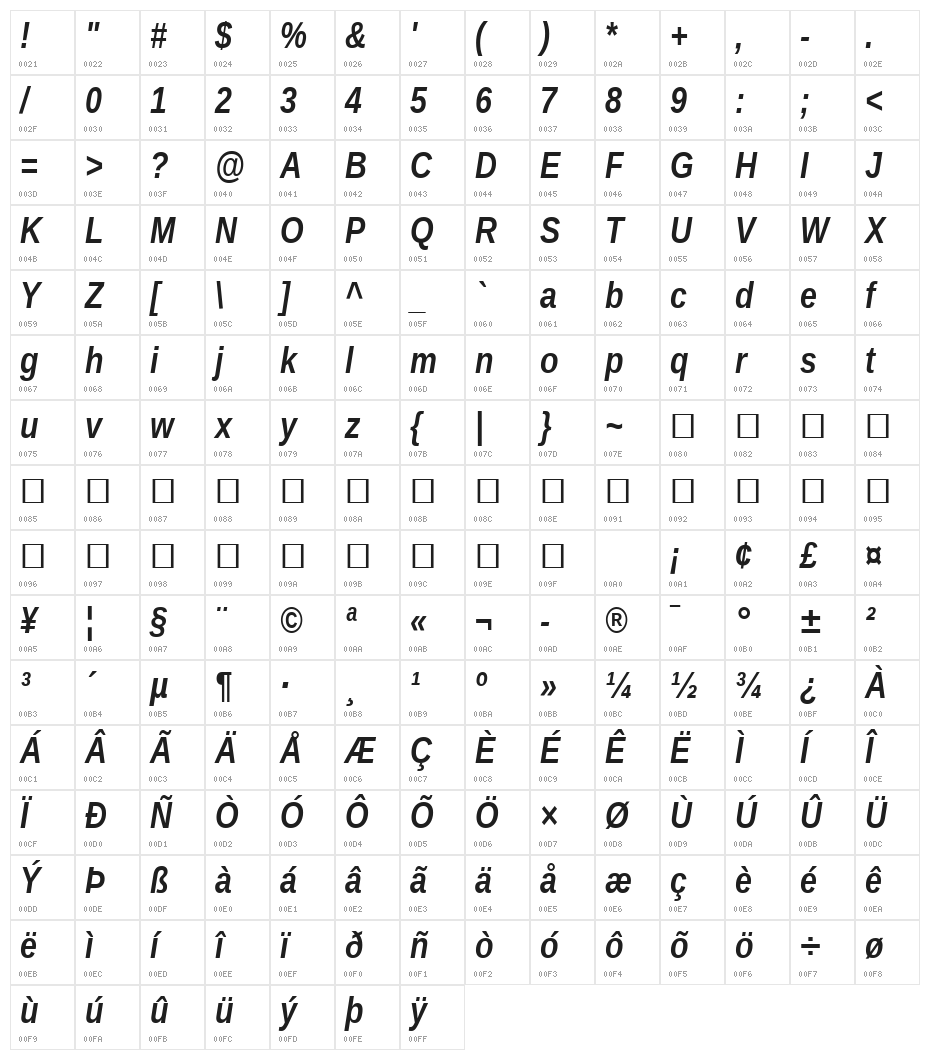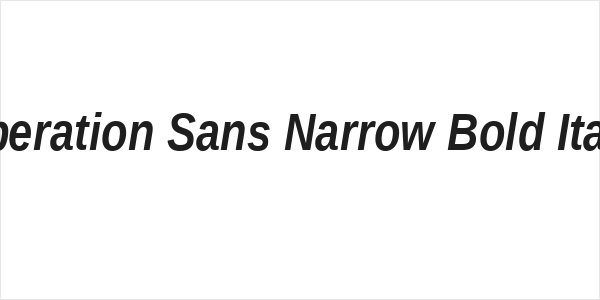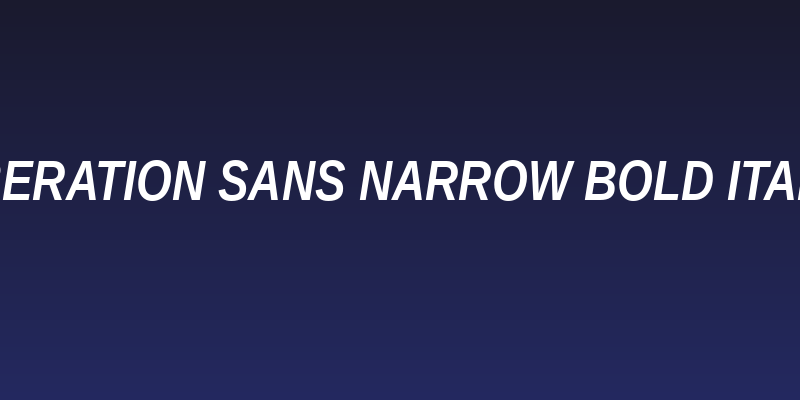
Liberation Sans Narrow Bold Italic Font
Liberation Sans Narrow Bold Italic Description
This typeface exhibits a clean and modern aesthetic with a narrow structure, making it ideal for space-efficient designs. The bold weight provides a strong presence, while the italic style adds a dynamic and forward-leaning appearance. The sans-serif design ensures readability and versatility across various applications. The characters are well-defined with consistent stroke widths, contributing to a uniform and professional look. The font maintains a balanced contrast, ensuring clarity even at smaller sizes. Its narrow width allows for more text in limited spaces without compromising legibility.
| Use Case | Headlines, Logos, Advertising |
| Proposed Projects | Ideal for headlines, branding, advertising, and editorial design where space is limited but impact is needed. |